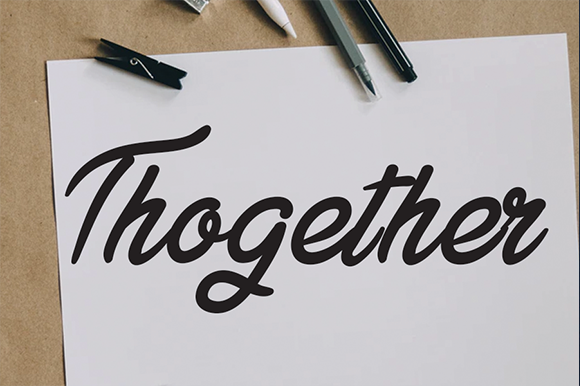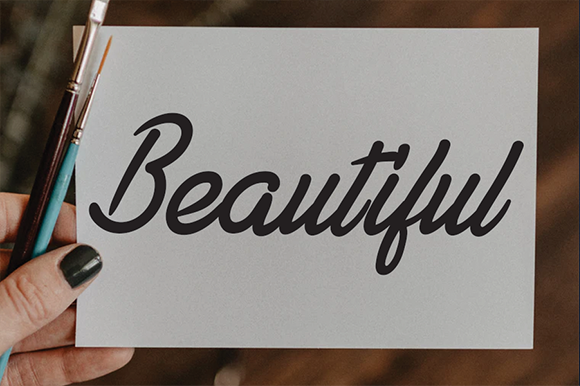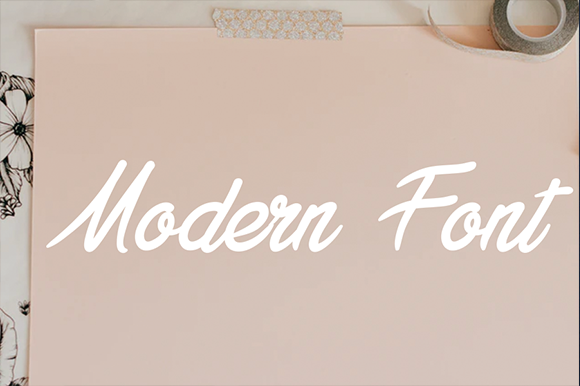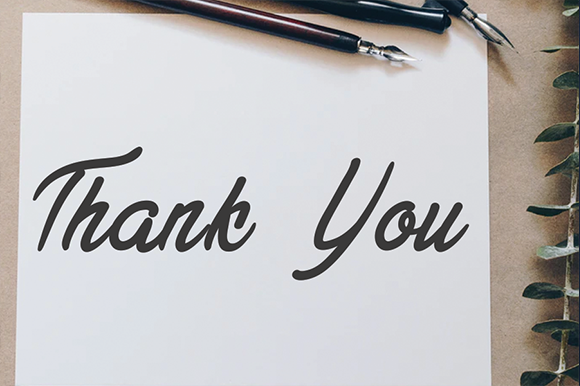
Kigallsama Font
Kigallsama simplifies elegance into one truly outstanding handwritten font. Whether it’s for web, print, moving images or anything else – Kigallsama will look spectacular.